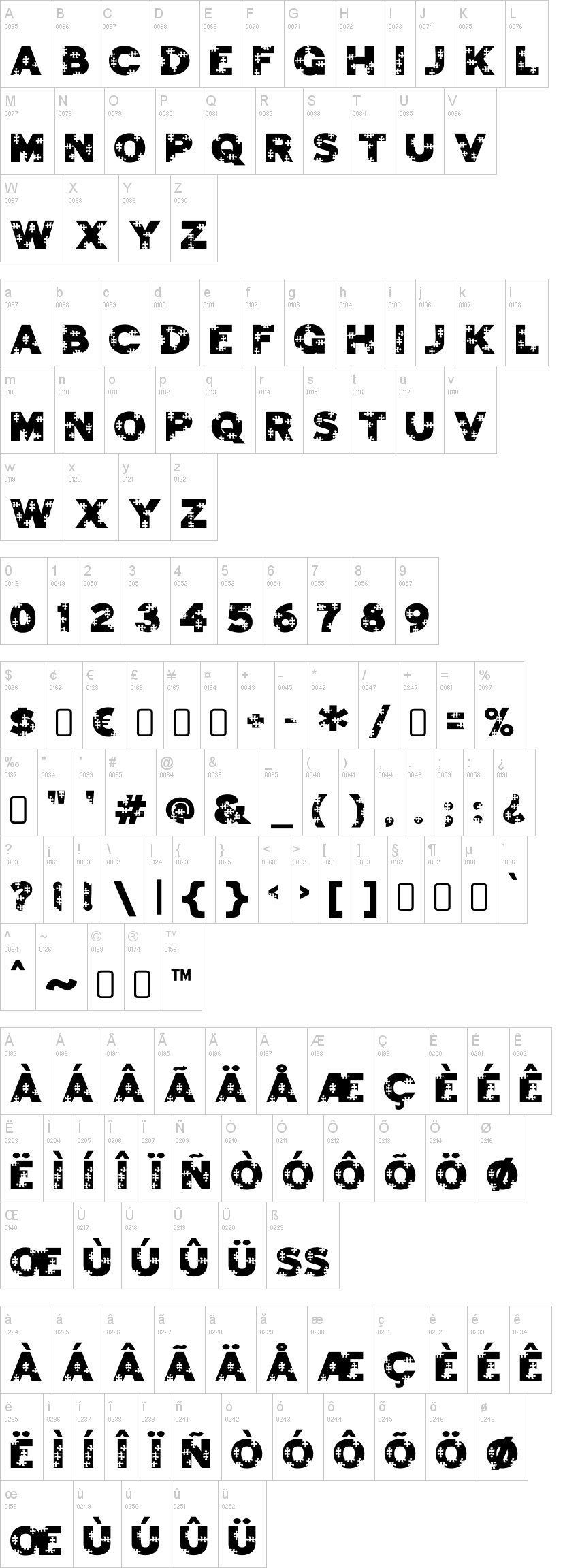
Шрифт Jigsaw Trouserdrop
Jigsaw Trouserdrop is a sans-serif scarehead font with a jigsaw puzzle theme. Don't forget to read the files inside the zip for details. Updated in 2012.